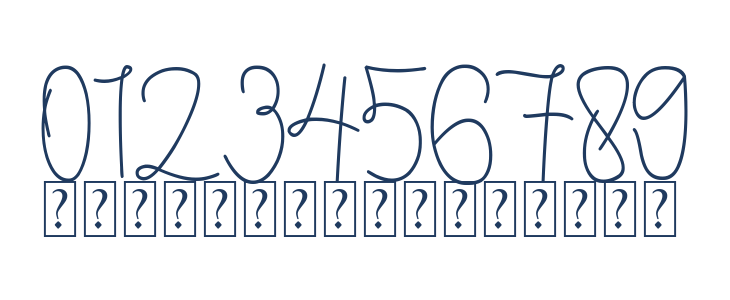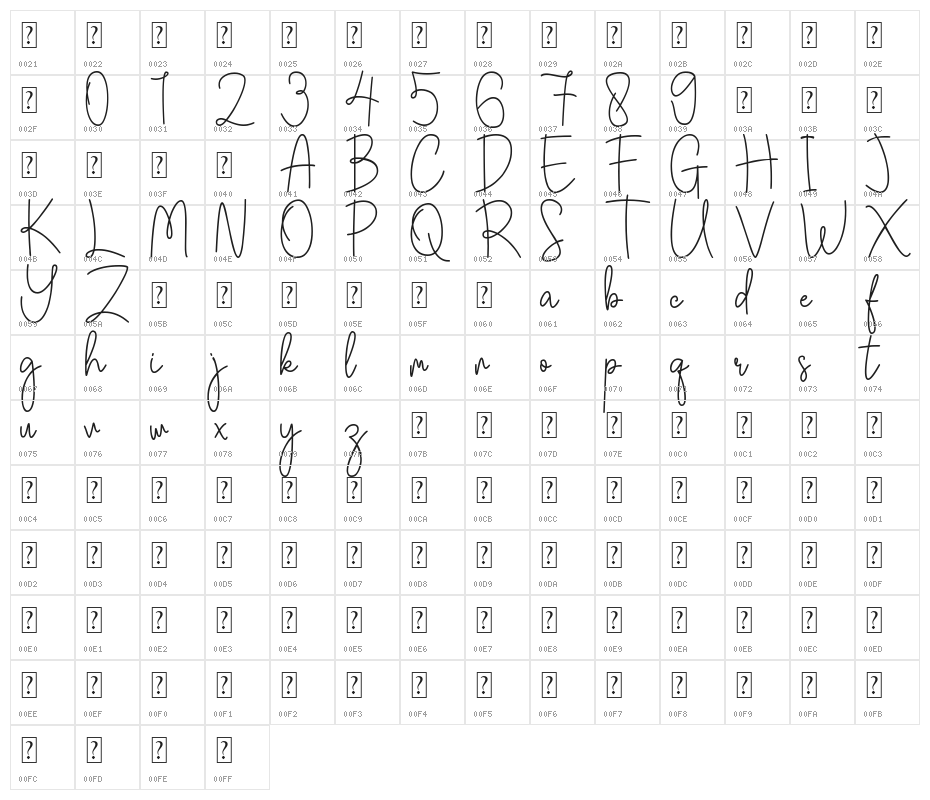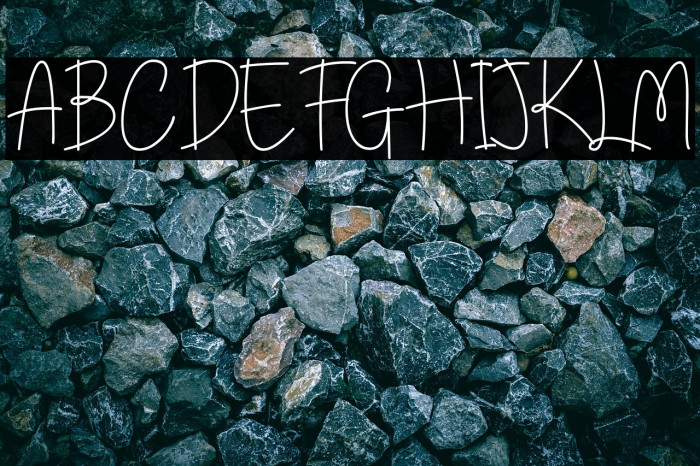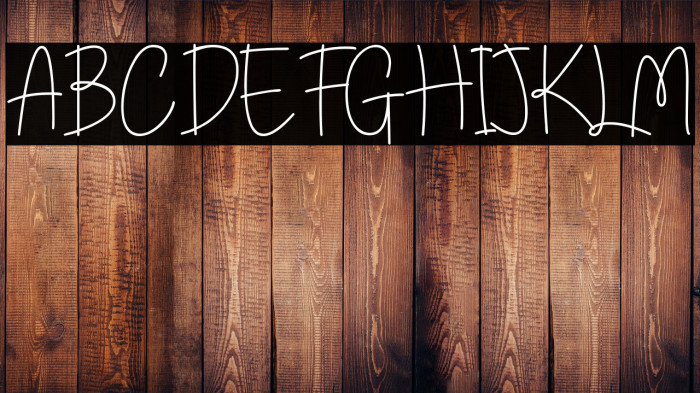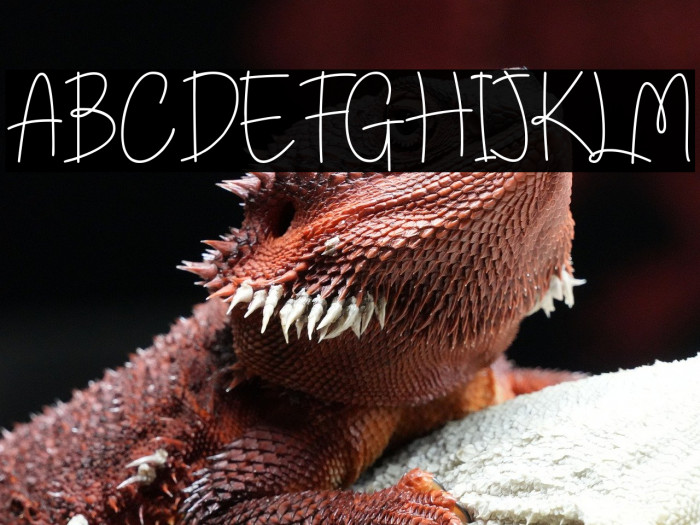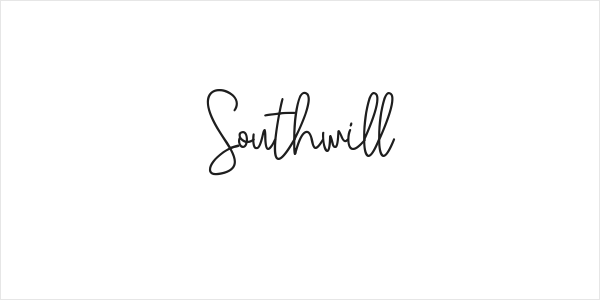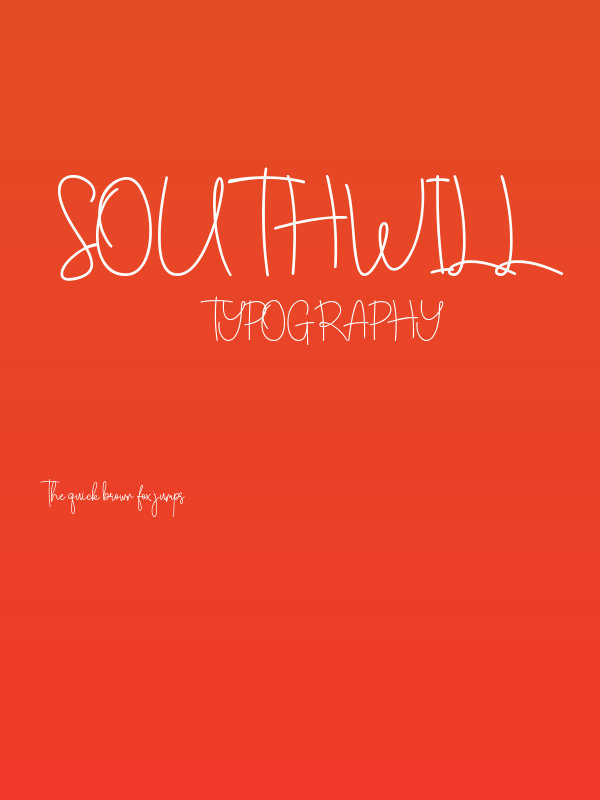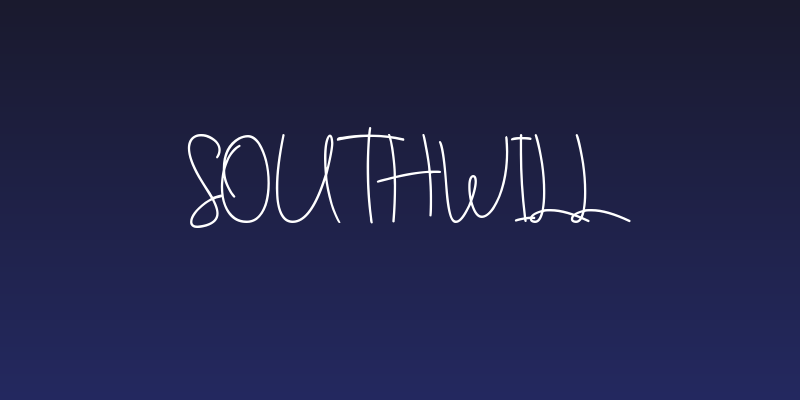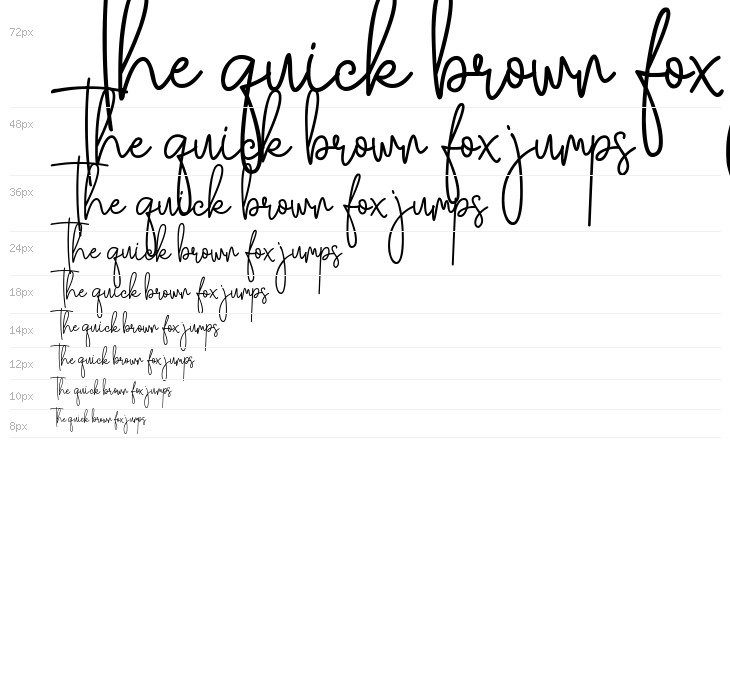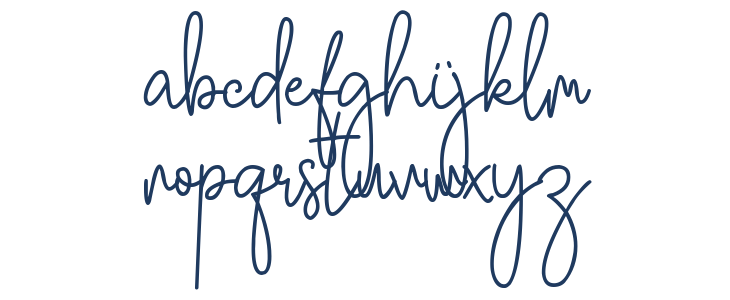
Southwill Font
Southwill Description
This font features a playful and whimsical handwritten style, characterized by its loose, flowing strokes and casual appearance. The uppercase letters are tall and slender, with a slight slant that adds to the informal feel. The lowercase letters are more rounded and connected, resembling a natural handwriting style. Numbers maintain the same playful aesthetic, with curves and loops that match the overall theme. The font's unique charm is enhanced by its irregularities, giving it a personal and approachable touch. It is ideal for projects that require a friendly and informal tone.
| Overall Style | Casual, Playful |
| Use Case | Logos, Invitations, Informal Text |
| Proposed Projects | Greeting cards, personal invitations, children's books, and playful branding materials. |